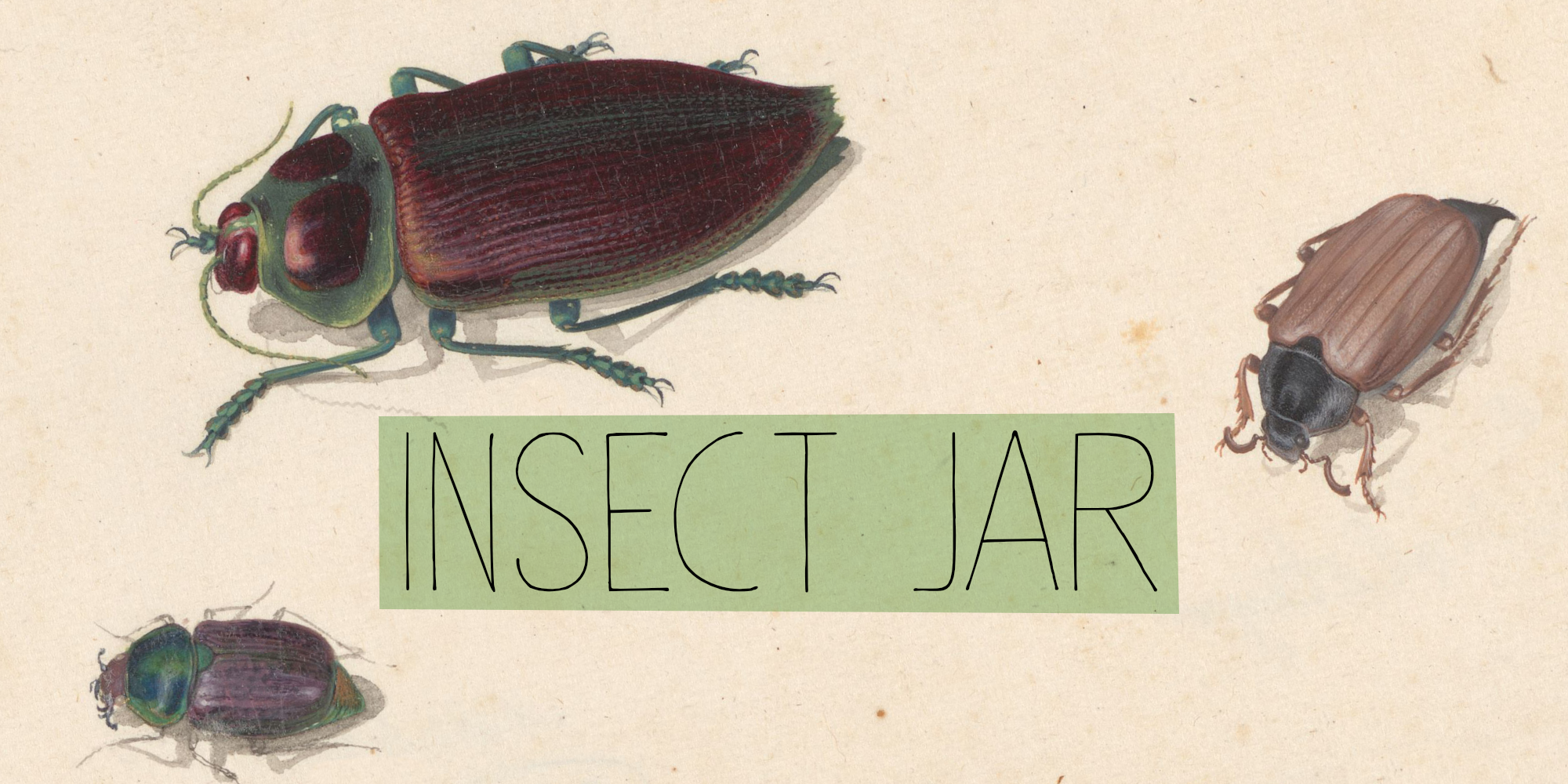
Insect Jar Font is perfect for entomology publications, nature museum materials, bug collection displays, scientific research graphics, natural history signage, children's nature books, educational biology materials, and curious naturalist typography.
What makes Insect Jar Font exciting is its naturalist collection character that embodies scientific curiosity and entomological fascination through specimen-inspired letterforms and collecting appeal. This intriguing typeface features collection construction, scientific details, and naturalist personality that captures the essence of insect study and scientific observation, making it ideal for projects seeking to communicate scientific wonder, natural discovery, and educational curiosity with authentic naturalist appeal and scientific sophistication.
The Insect Jar Font family includes Light, Regular, and Bold weights, each maintaining the characteristic scientific curiosity and naturalist appeal that define this distinctive typeface's collecting personality and educational sophistication.
Insect Jar Font Free Download provides access to a typeface that perfectly captures the essence of scientific collecting and naturalist observation. This curious font brings authentic naturalist aesthetics to contemporary projects, making it essential for natural history museums, educational publishers, and scientific organizations targeting audiences fascinated by entomology and natural science discovery. The font's collection construction and scientific details ensure immediate recognition of curiosity and learning while its distinctive character creates educational connections among individuals seeking scientific knowledge and natural discovery experiences. Whether designing nature education materials, museum exhibition graphics, or scientific publication projects, this font delivers the naturalist authenticity and scientific sophistication that curious learning audiences expect. Its scientific foundation and collection symbolism make it indispensable for projects celebrating natural science, educational discovery, and the fascinating world of entomological study, ensuring communications resonate with audiences who value the scientific wonder, natural curiosity, and educational exploration that define authentic naturalist experiences and scientific learning across diverse educational and natural science applications.